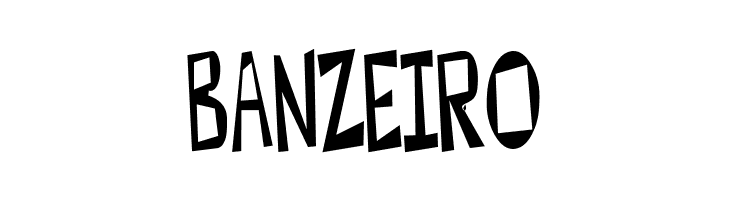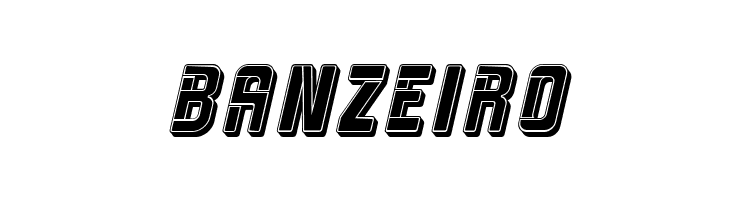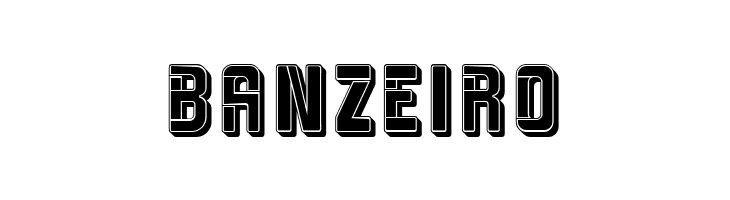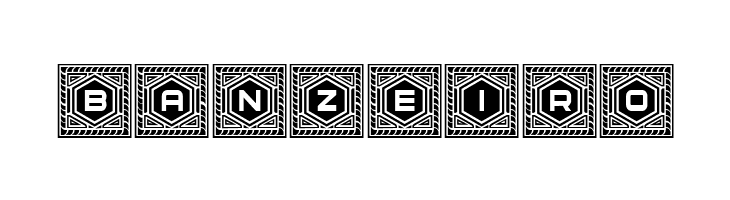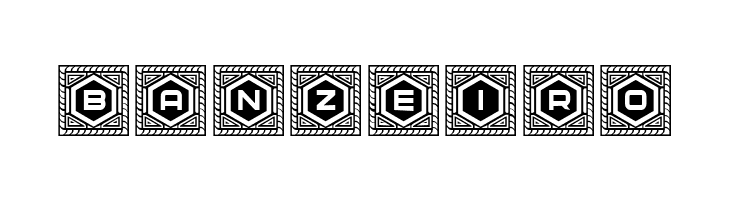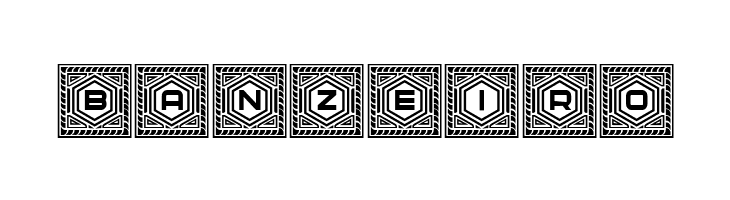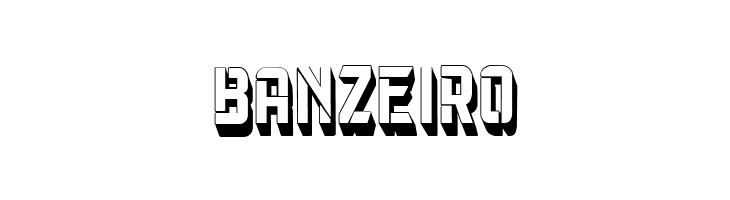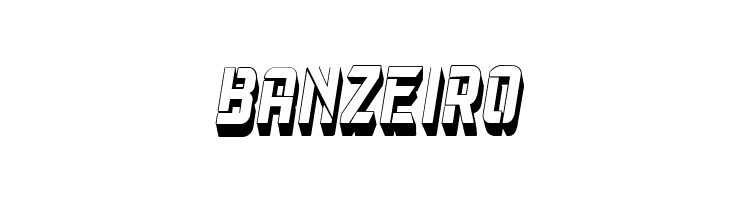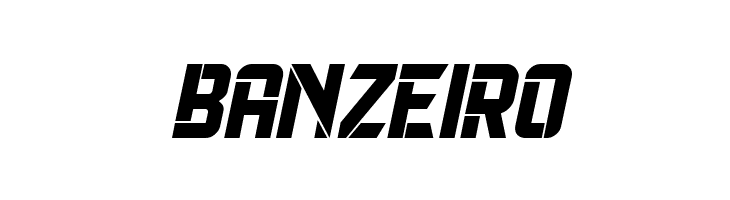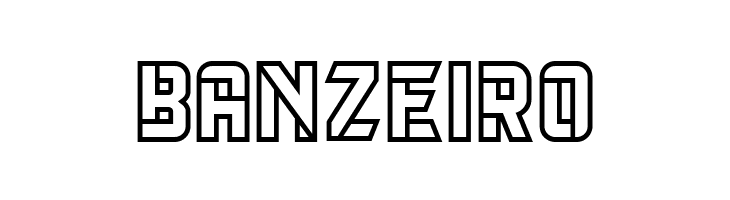
A modern, geometric font with clean, continuous lines and a minimalist aesthetic.
A modern, geometric font with thin, uniform lines and a minimalist style.
Bold, italicized font with a three-dimensional shadow effect.
A bold, geometric font with a three-dimensional effect and strong contrast.
A decorative font with intricate, nature-inspired patterns and a unique organic style.
A bold, geometric font with angular and distinctive characters.
A bold, italicized font with angular, modern design elements.
A playful and decorative font with bold, whimsical elements and rounded edges.
A dynamic italic font with angular, elongated letterforms and sharp serifs.
A geometric, hollow font with angular lines and a modern aesthetic.
A modern, hollow, inverse font with geometric structure and consistent stroke width.
A modern, angular serif font with tall, narrow letterforms and strong vertical emphasis.
A bold, playful font with whimsical and decorative elements.
A casual, handwritten script font with fluid, connected letters and dynamic strokes.
A bold, decorative font with intricate details and elegant flourishes.
A bold, dotted decorative font with a playful and engaging style.
A bold, dynamic script font with high contrast and elegant flourishes.
A bold, calligraphic font with high contrast and decorative elements.
A bold, expressive script font with elegant, flowing letterforms.
A bold, 3D italic font with a dynamic and modern style.
A bold, 3D geometric font with a modern, shadowed design.
A bold, italic, and geometric font with a modern, dynamic style.
A bold, outlined, italic font with a modern and dynamic style.
A bold, geometric outline font with a modern and edgy aesthetic.
A flowing, cursive font with elegant, sweeping strokes and a modern calligraphic style.
A flowing, cursive font with elegant loops and a modern calligraphic style.
A decorative font with bold characters enclosed in hexagonal frames, featuring intricate line patterns.
A geometric, decorative font with characters in hexagonal frames.
A bold, geometric font with characters enclosed in decorative hexagons.